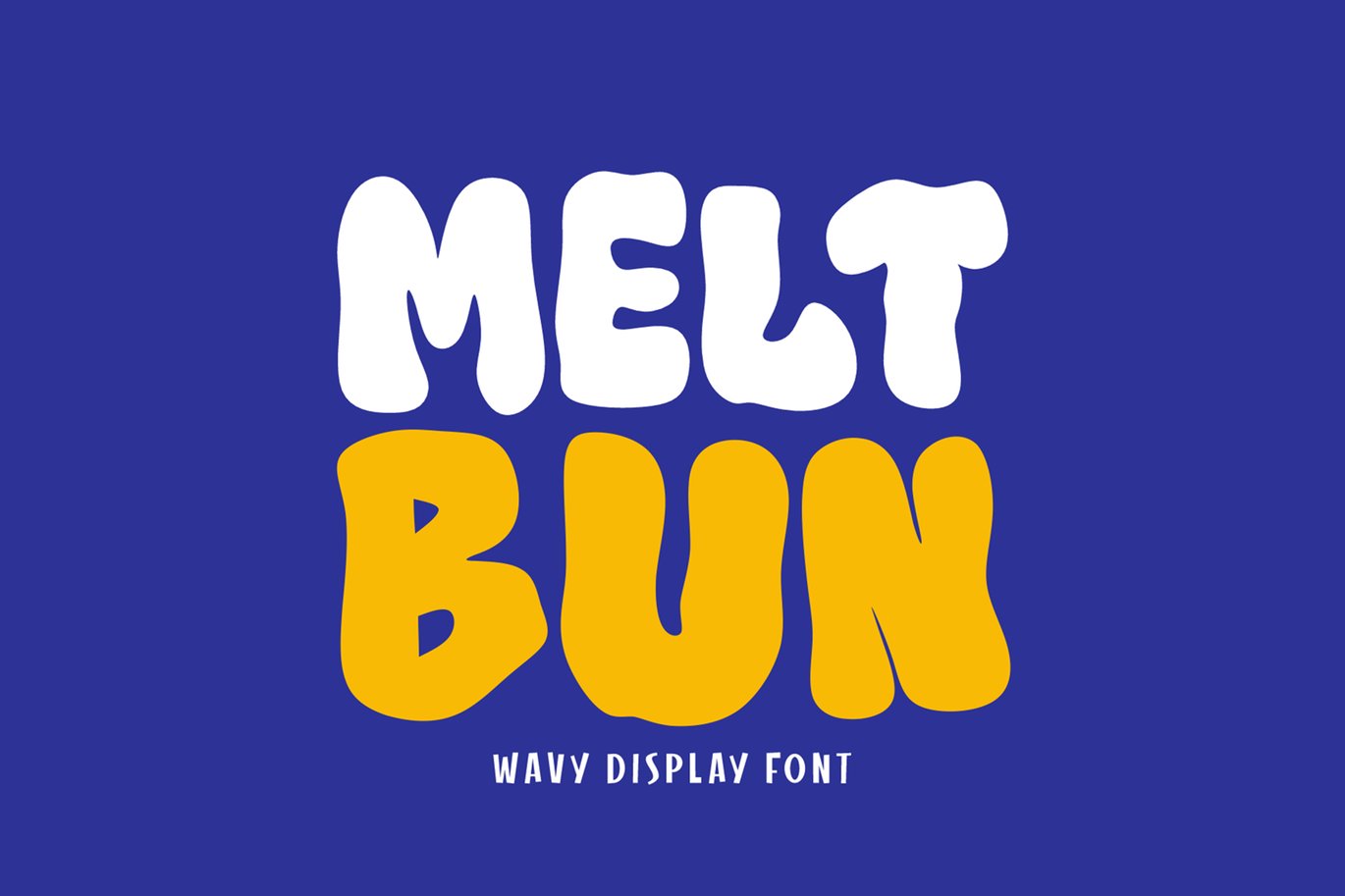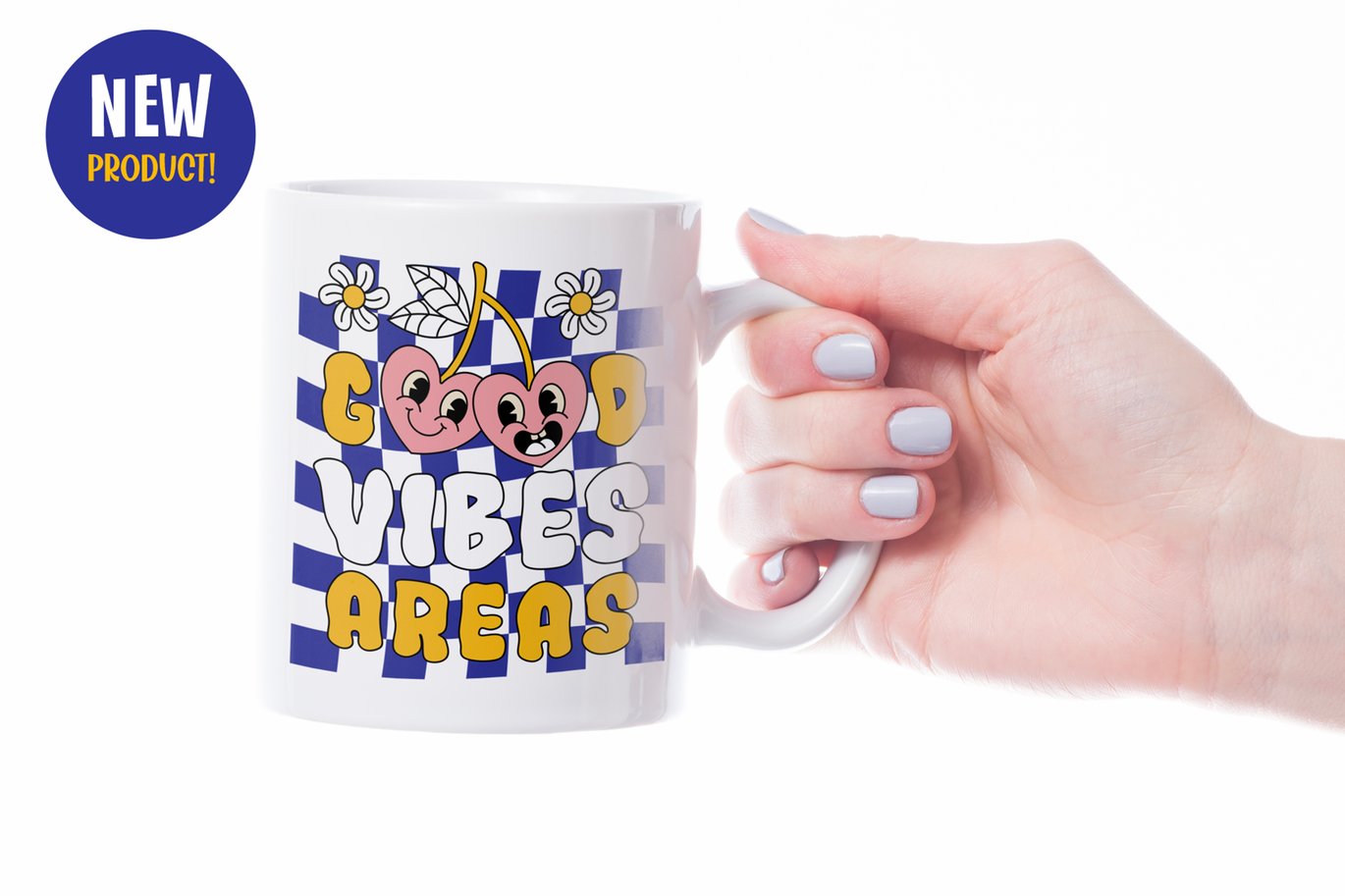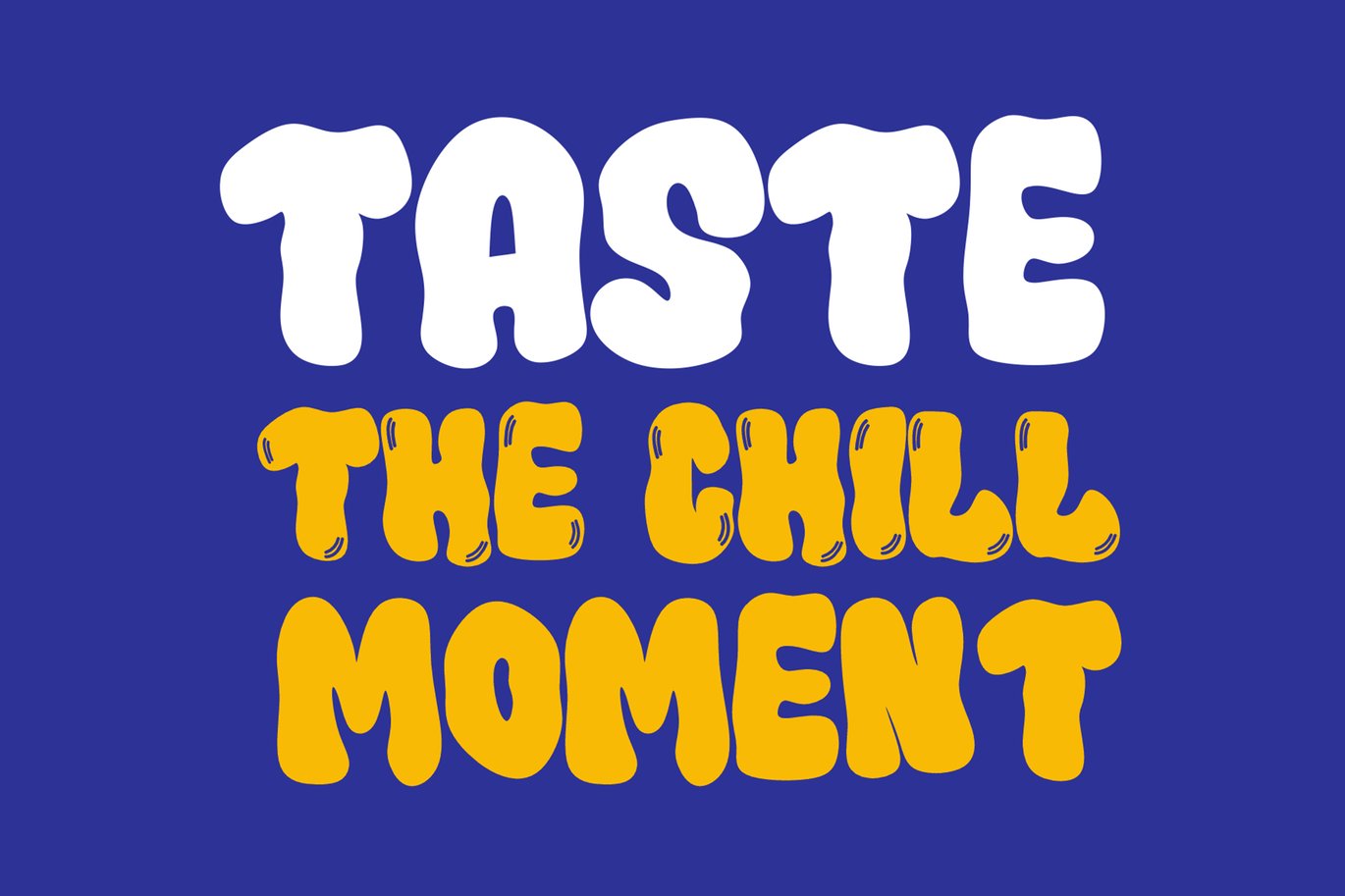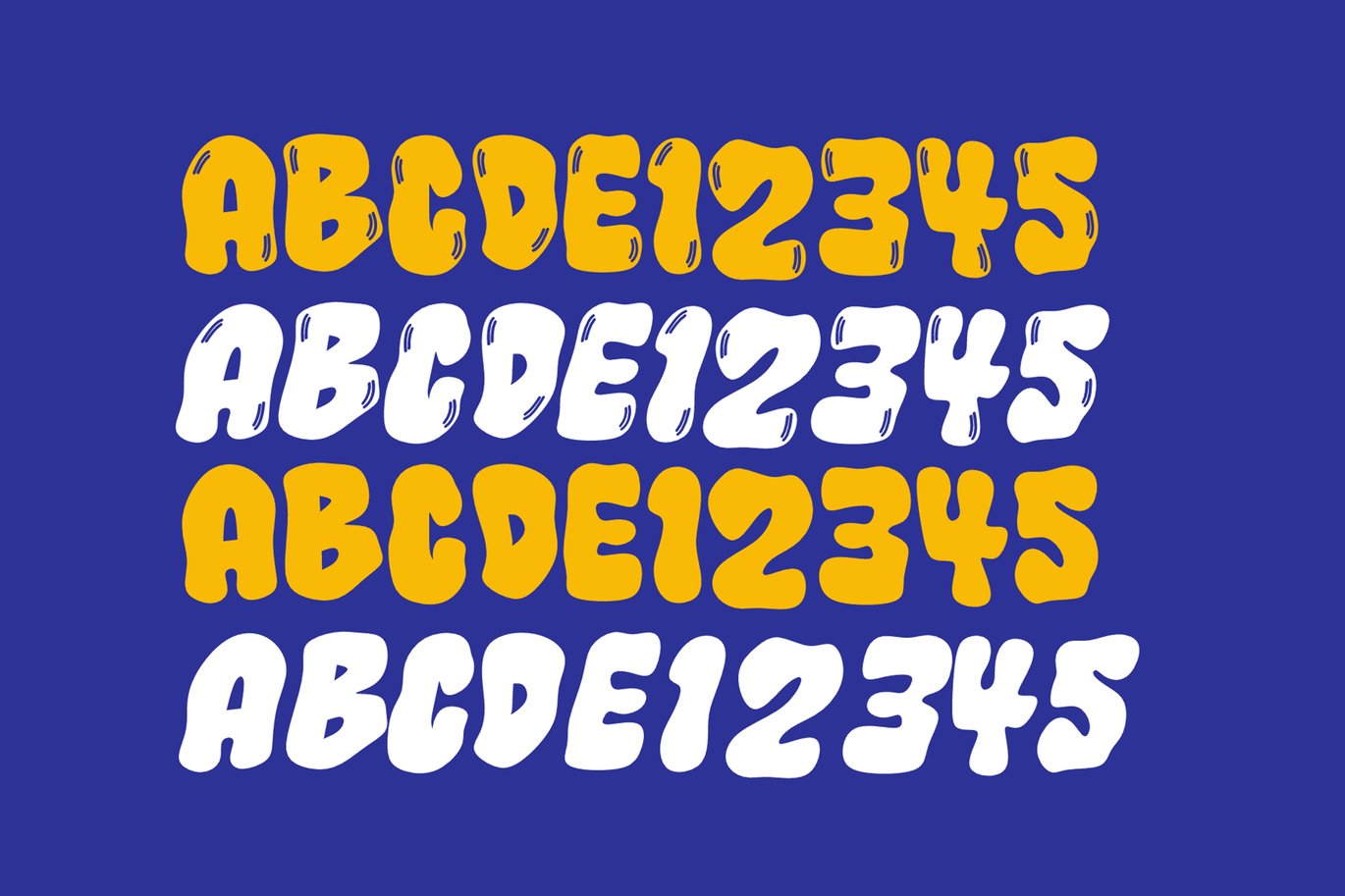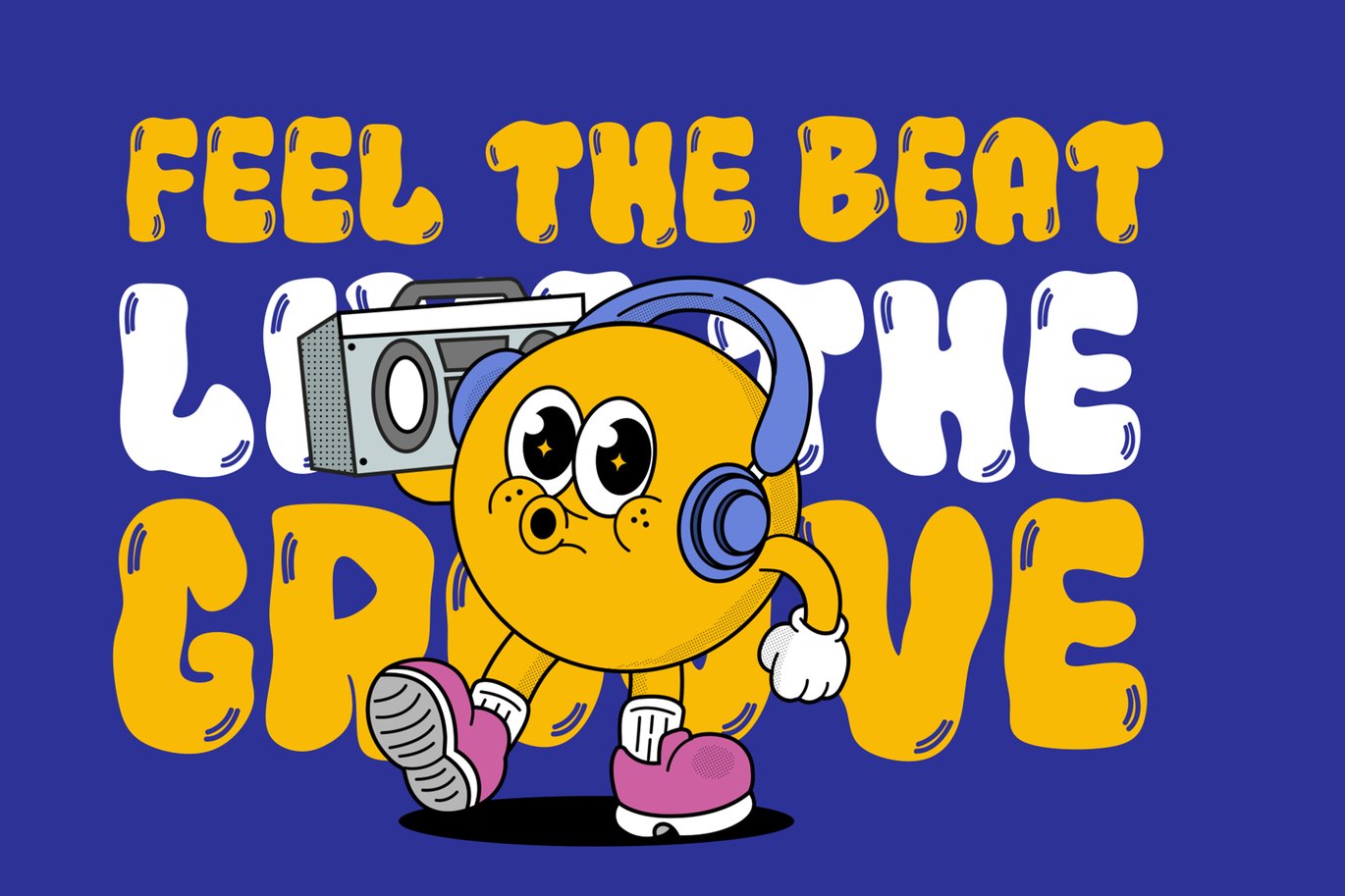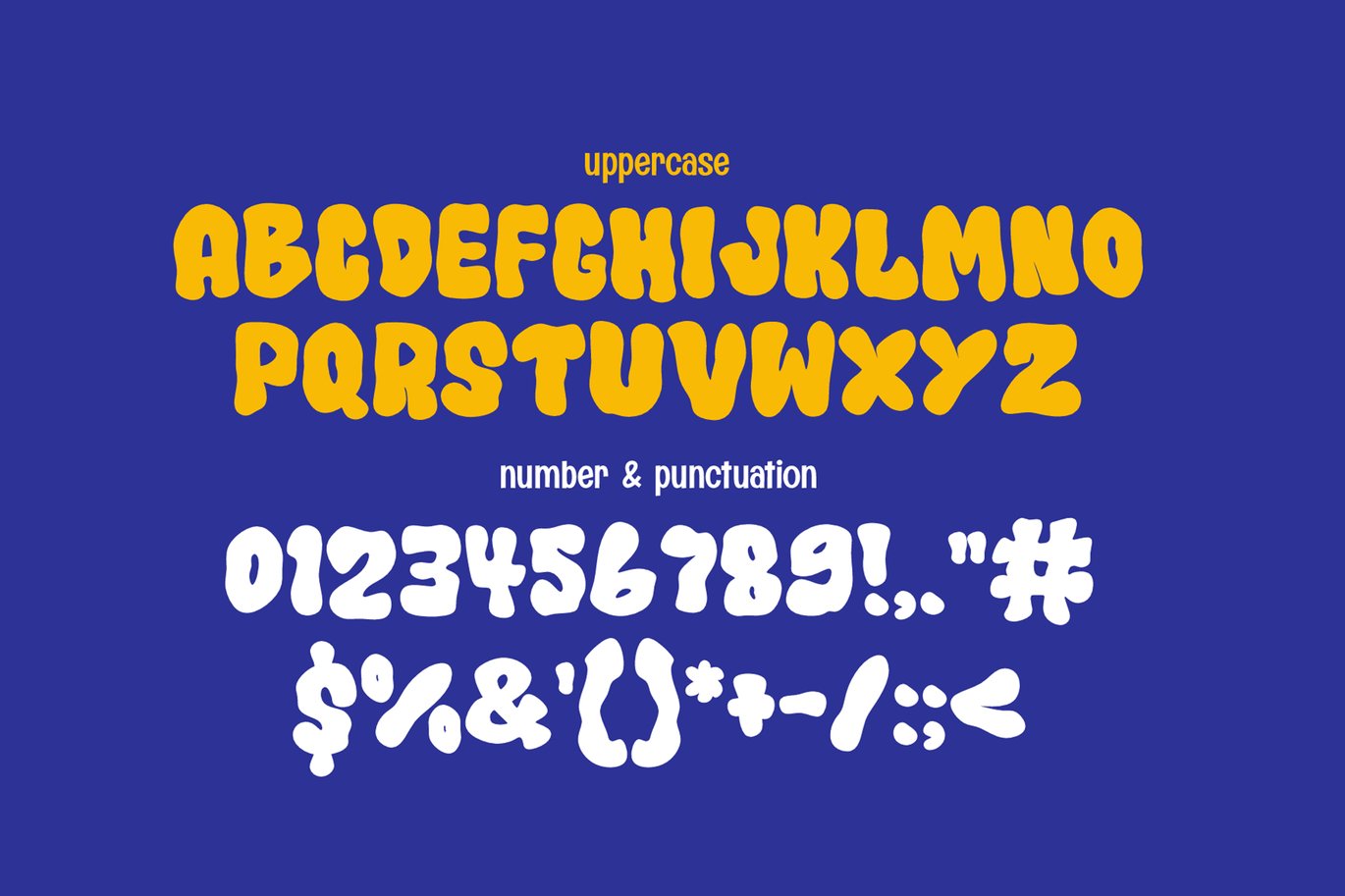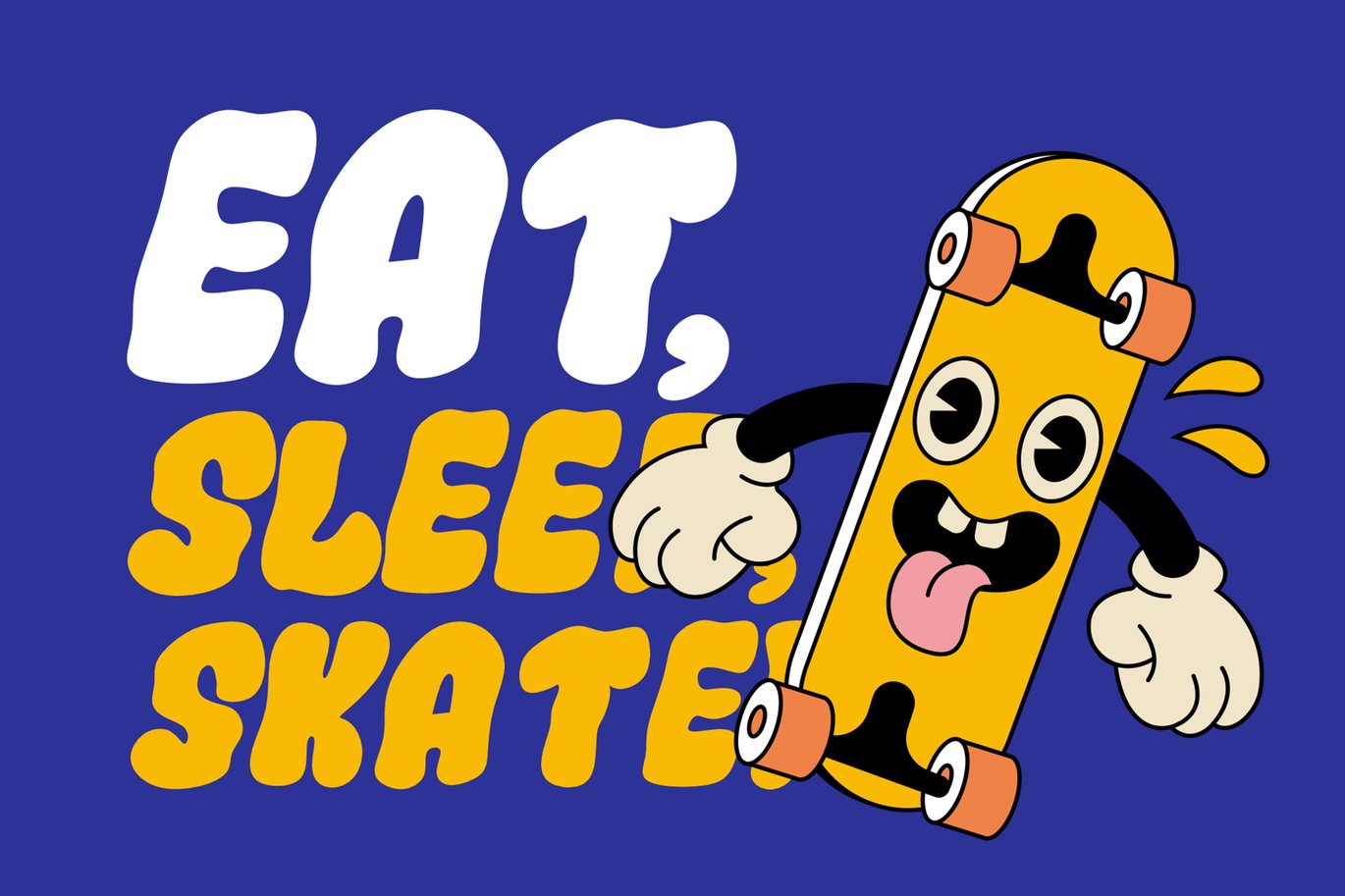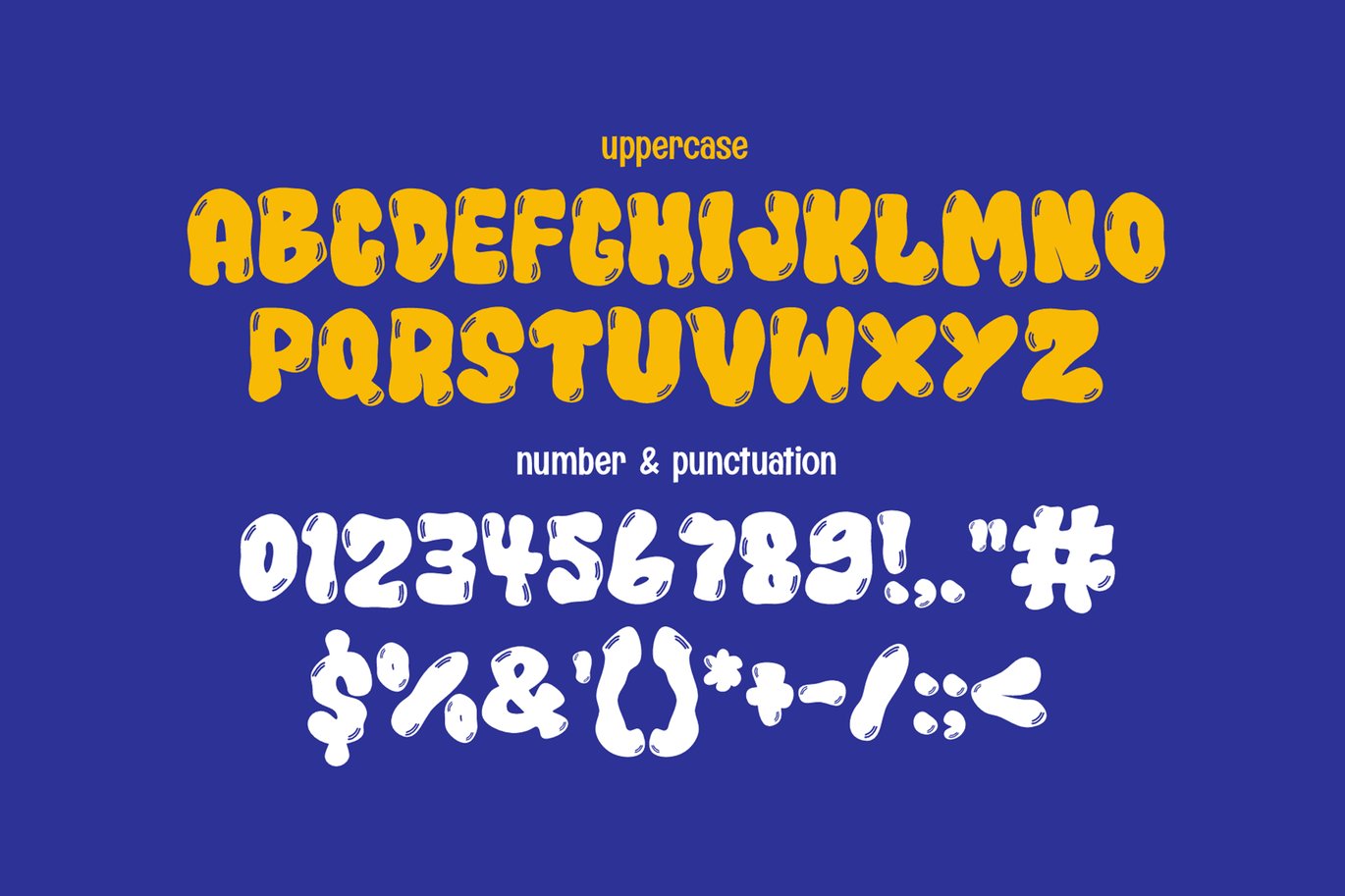
Melt Bun – Wavy Display Font
Melt Bun – A Wavy Display Font That Drips with Personality!
Get ready to bend the rules of typography with Melt Bun – a wavy display font that oozes creativity and fun! With its fluid, playful curves, this font brings a sense of motion and energy to any design, making it impossible to ignore.
Whether you’re crafting bold posters, eye-catching branding, or vibrant social media graphics, Melt Bun adds a unique twist that makes your message pop. It’s smooth, flowing shapes give off a lighthearted yet dynamic vibe, perfect for projects that need a fresh and lively touch.